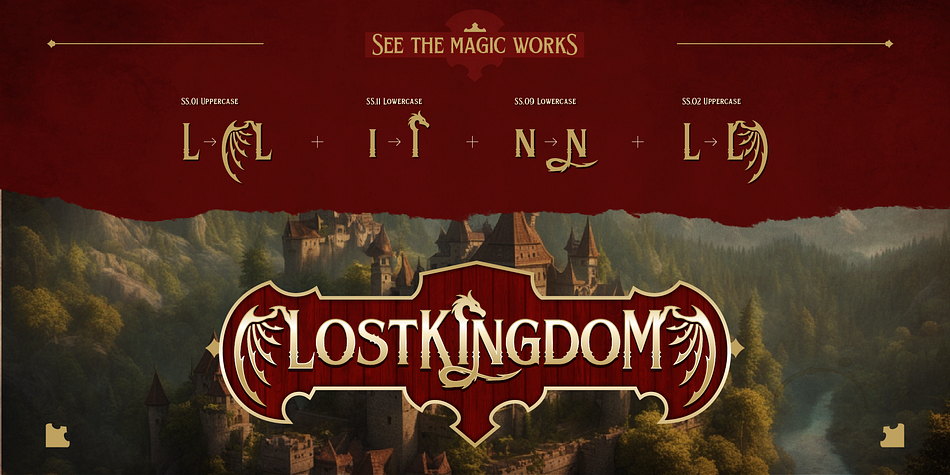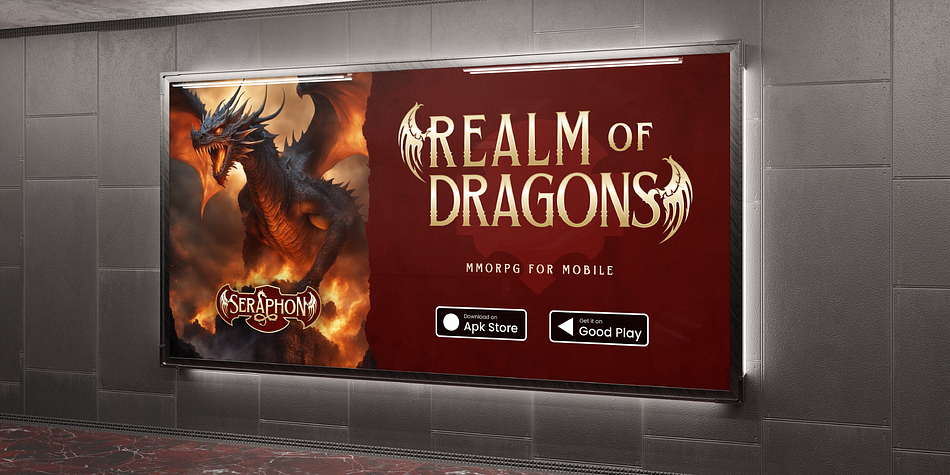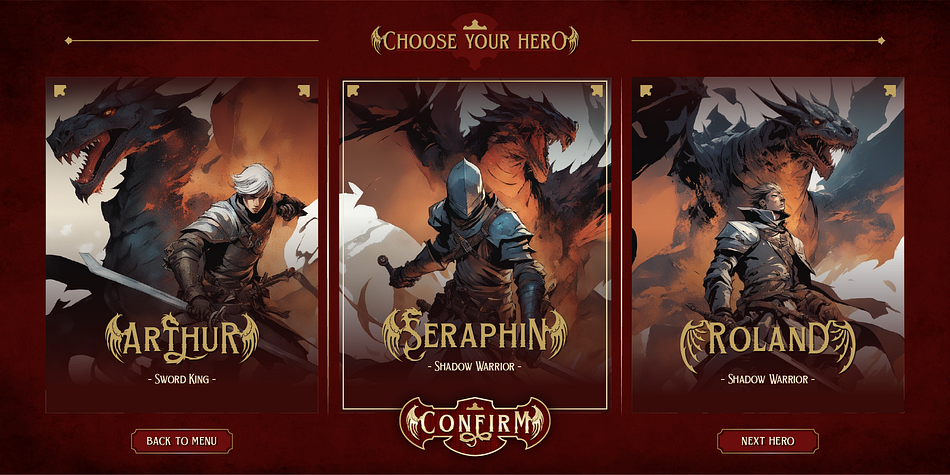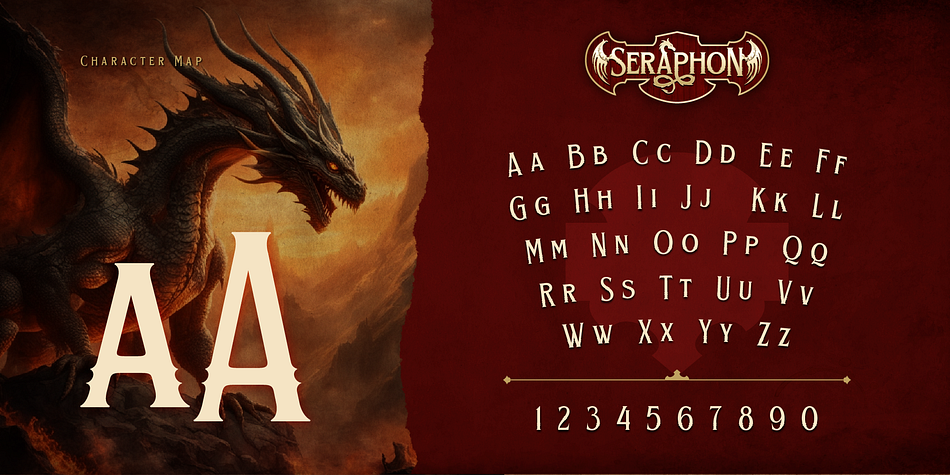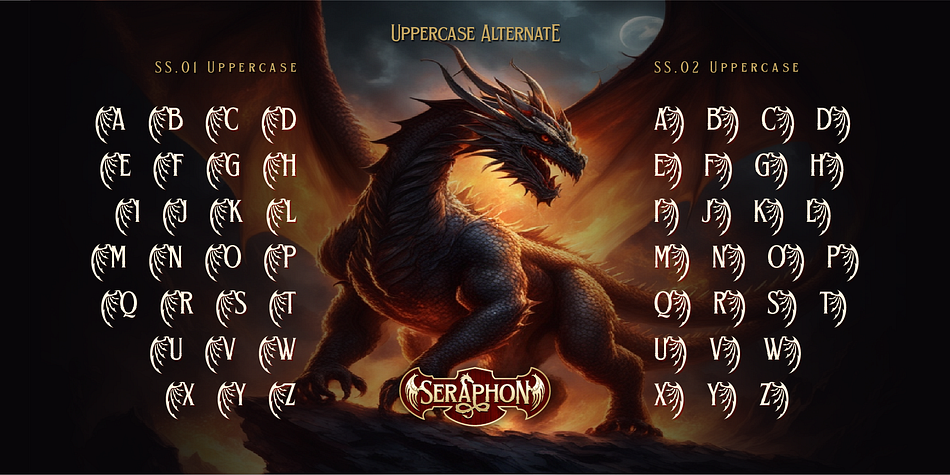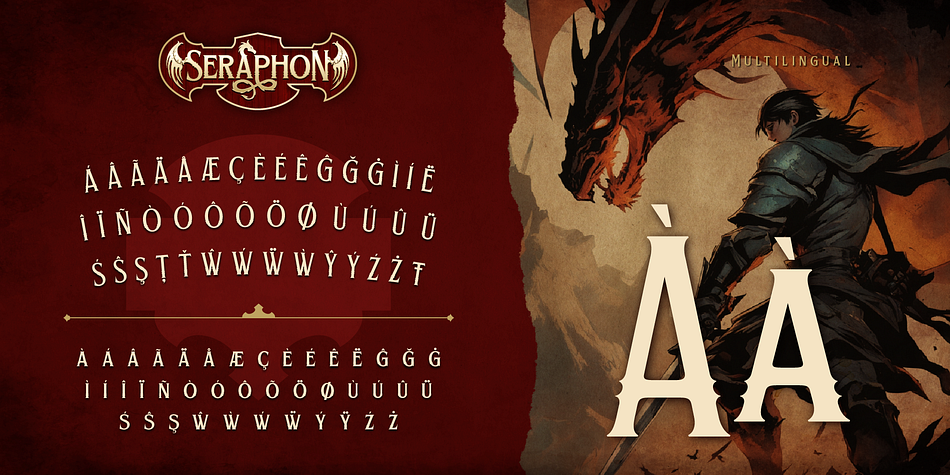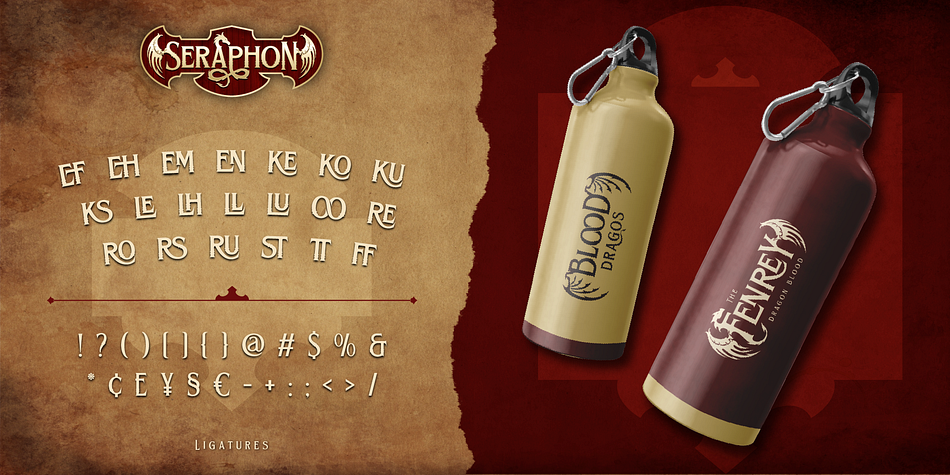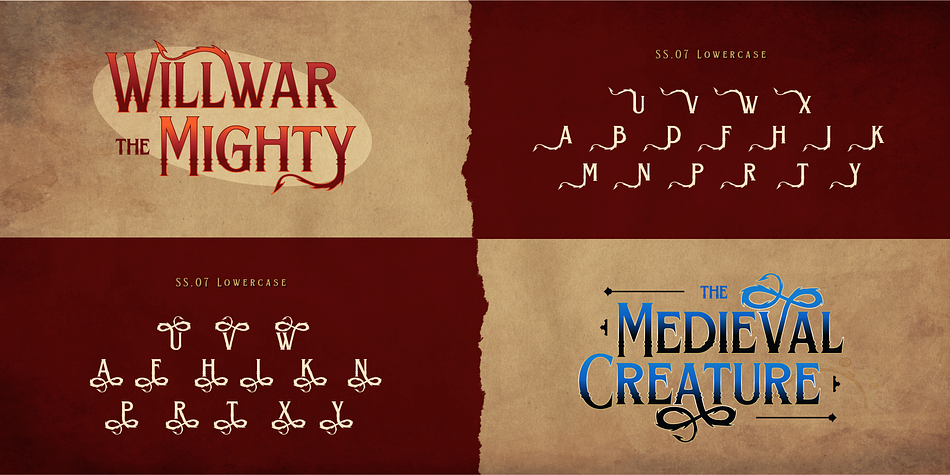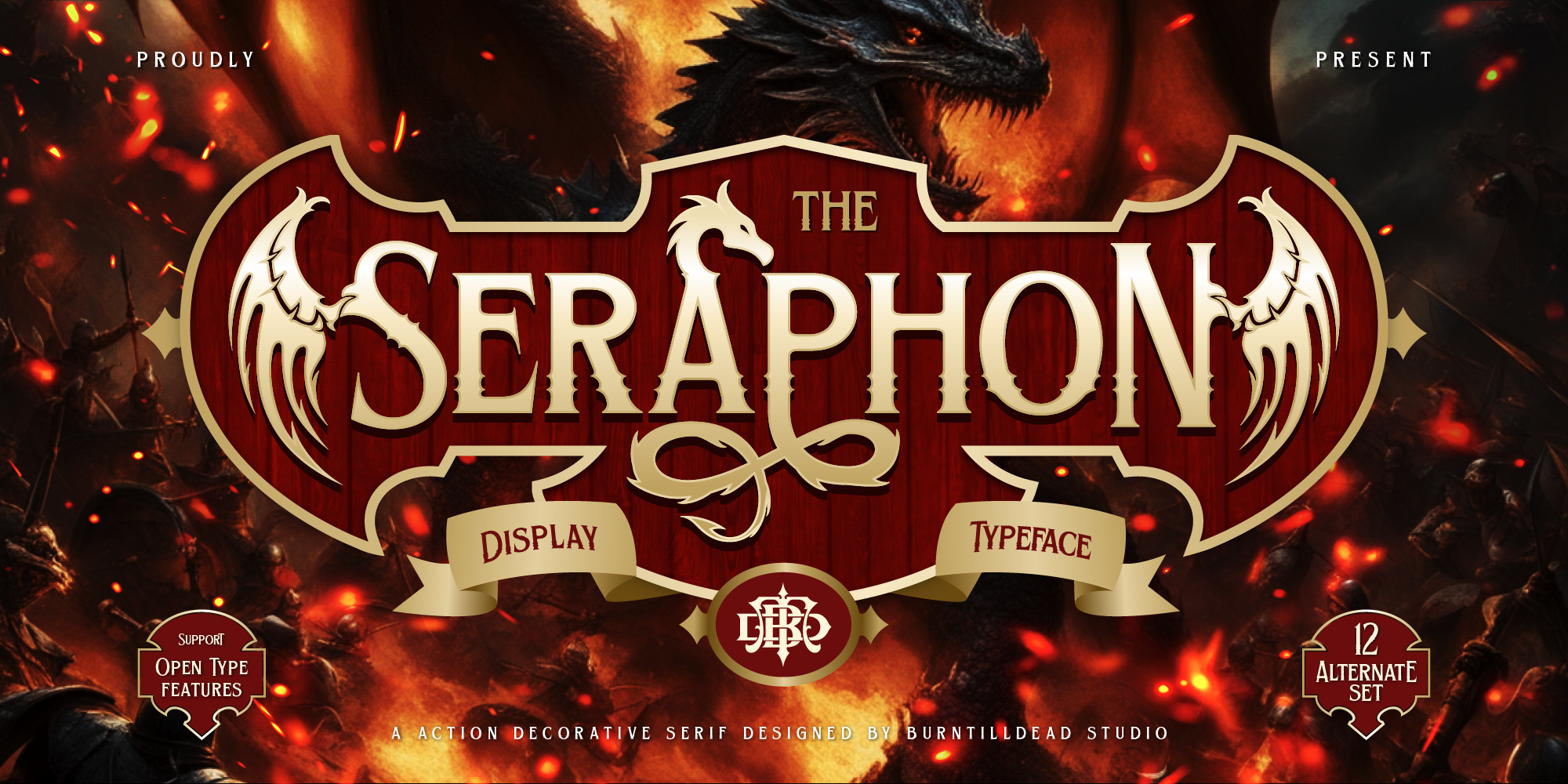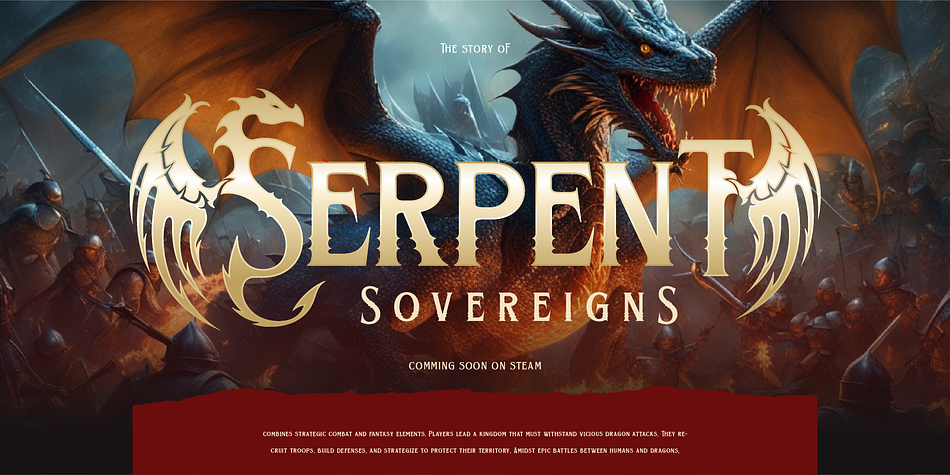
Seraphon
Designed by Eric Kurniawan, Seraphon is a display font family published by Burntilldead.
Be the dragon master with “Seraphon”! Inspired by the ferocity, valor and awe of the dragons. Each letter is carved with amazing and astonishing detail, reflecting the majesty and power of mythical creatures as well as the bravery. With sharp lines and a majestic design, this font gives text a magical touch. Also the alternate highly detailed with dragon parts on each letter. Perfect for game titles, movie poster titles, fantasy novel cover and other design that require with dragon themes. Let each letter of this font tell a story about the dragon and find strength and courage in every character!
- Seraphon A-Z set
- Numbers
- Punctuation
- Alternates (more than 10 alternate)
- Ligature